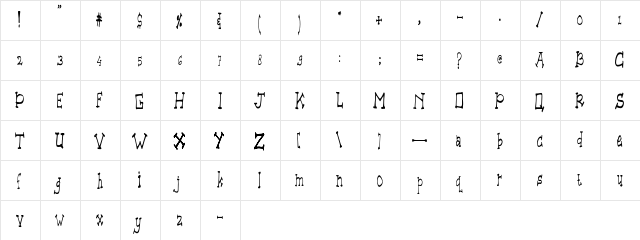
Advance Regular
| Designer | Oziel89 Studio |
Design Context for Advance Typeface
Advance is a composed and adaptable typeface that performs quietly and consistently across a wide range of design contexts.